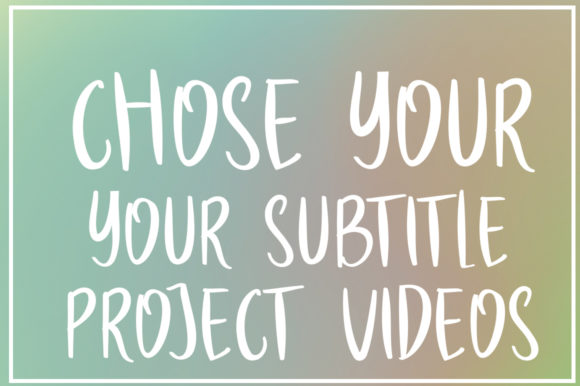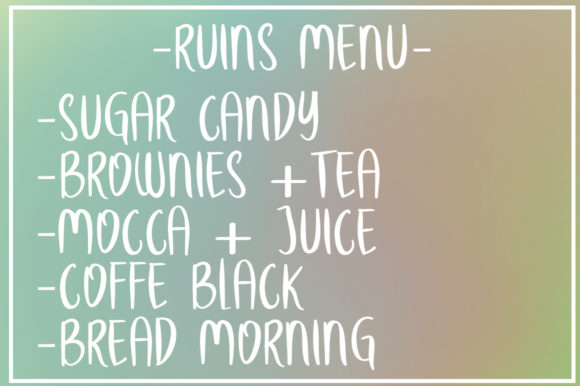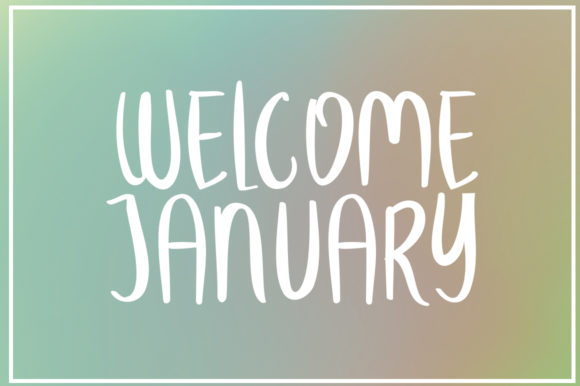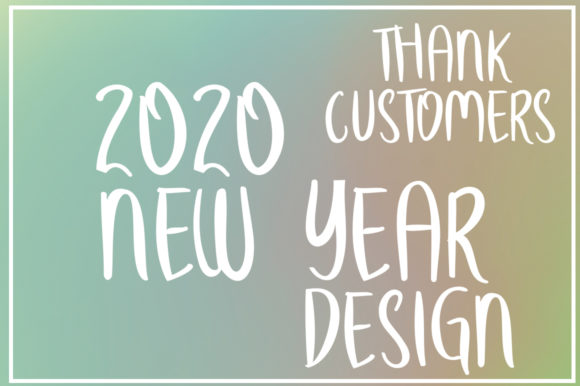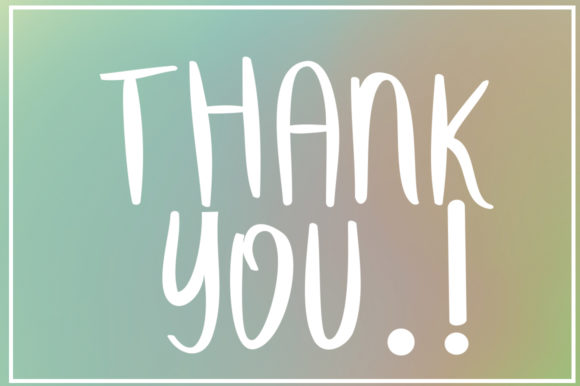
Cake Peanuts Font: A Bittersweet Script Font for Your Creative Projects
Are you a designer or crafter looking for a unique and playful font to add a touch of personality to your projects? Look no further than Cake Peanuts, a bittersweet script font that’s perfect for a wide range of creative endeavors. With its cute and whimsical look, Cake Peanuts is sure to capture the hearts of anyone who lays eyes on it.
What is Cake Peanuts Font?
Cake Peanuts is a script font that’s been carefully crafted to bring a sense of playfulness and fun to your designs. Its bittersweet charm makes it perfect for projects that require a touch of sweetness and whimsy. Whether you’re working on a logo, a greeting card, or a craft project, Cake Peanuts is the perfect choice.
Features of Cake Peanuts Font
So, what makes Cake Peanuts font so special? Here are just a few of its key features:
• Playful look: Cake Peanuts has a unique and playful look that’s sure to add a touch of personality to your designs.
• Bittersweet charm: This font has a sweet and whimsical charm that’s perfect for projects that require a touch of elegance and sophistication.
• Cute and whimsical: Cake Peanuts is a font that’s sure to capture the hearts of anyone who sees it. Its cute and whimsical look makes it perfect for projects that require a touch of fun and playfulness.
• Versatile: Whether you’re working on a logo, a greeting card, or a craft project, Cake Peanuts is the perfect choice.
Why Choose Cake Peanuts Font?
So, why should you choose Cake Peanuts font for your next project? Here are just a few reasons:
• Unique look: Cake Peanuts has a unique and playful look that’s sure to set your designs apart from the rest.
• Ease of use: This font is easy to read and use, making it perfect for projects that require a touch of elegance and sophistication.
• Flexibility: Cake Peanuts is a versatile font that can be used for a wide range of projects, from logos and greeting cards to craft projects and more.
• Emotional connection: This font has a sweet and whimsical charm that’s sure to create an emotional connection with your audience.
How to Use Cake Peanuts Font
Using Cake Peanuts font is easy! Here are just a few tips to get you started:
• Pair it with other fonts: Cake Peanuts looks great when paired with other fonts, such as sans-serif fonts or serif fonts.
• Use it for headings: This font is perfect for headings and titles, where its playful look can really shine.
• Add it to your craft projects: Cake Peanuts is a great font to use for craft projects, such as scrapbooking, card making, and more.
In conclusion, Cake Peanuts font is a bittersweet script font that’s perfect for designers and crafters looking to add a touch of personality to their projects. With its playful look, cute and whimsical charm, and versatility, Cake Peanuts is sure to capture the hearts of anyone who sees it. So why not give it a try and see how it can add a touch of sweetness and whimsy to your designs?